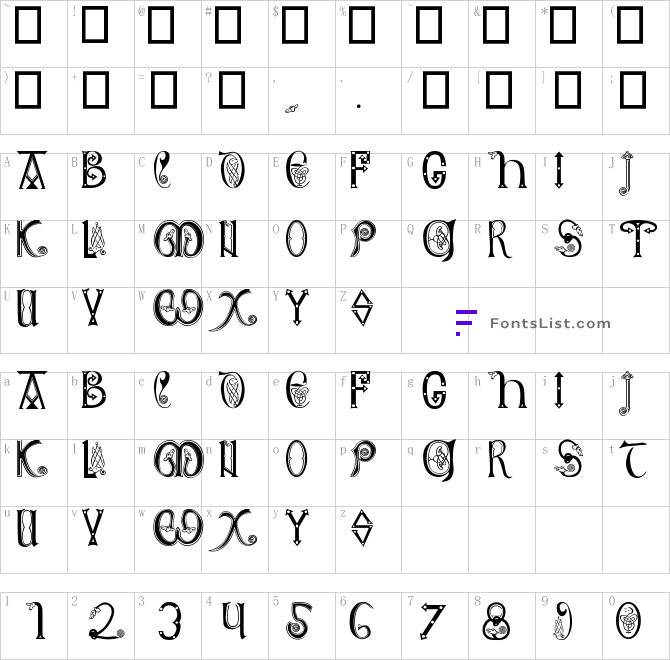
- Font Name:Anglo-Saxon, 8th c.
Anglo-Saxon-8th-c.ttf is a very beautiful artistic font, Anglo-Saxon-8th-c.ttf is widely used in the design and printing of various books and pictures,Anglo-Saxon-8th-c.ttf has a strong visual impact,Anglo-Saxon-8th-c.ttf is a commonly used font in newspapers, magazines and books, and is used in posters, e-commerce Poster design, store design, logo design, font design and other fields.Anglo-Saxon-8th-c.